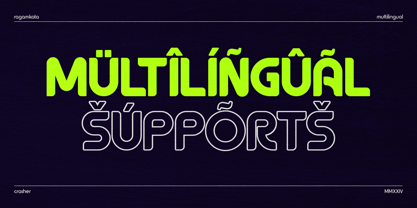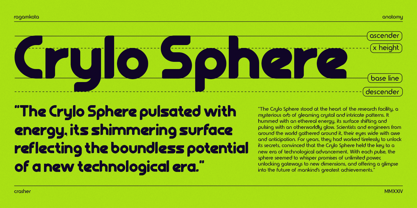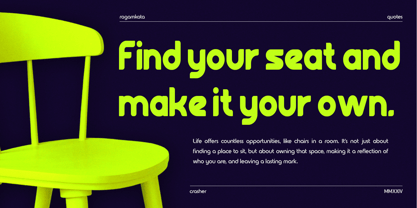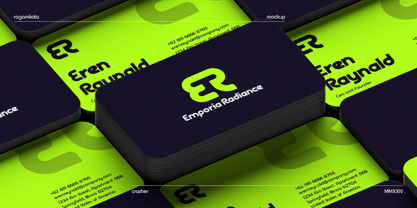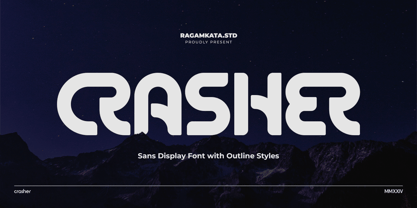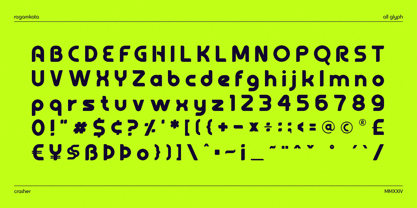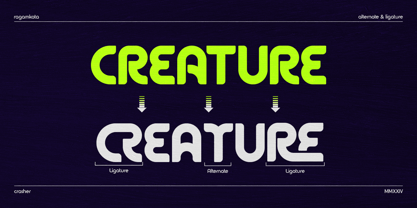
Crasher Outline
by RagamKata
The Crasher Outline Font Family was designed by Yogiswhara Dio Prakoso Riadi and published by RagamKata. Crasher Outline contains 2 styles and family package options.
Crasher is a Sans display typeface with brings science fiction style, perfect for logos, branding, headers, and titling. With ligatures and precise kerning and spacing tailored for impactful logos and branding materials, Crasher Font ensures your designs make a lasting impression.
- Multilingual Available